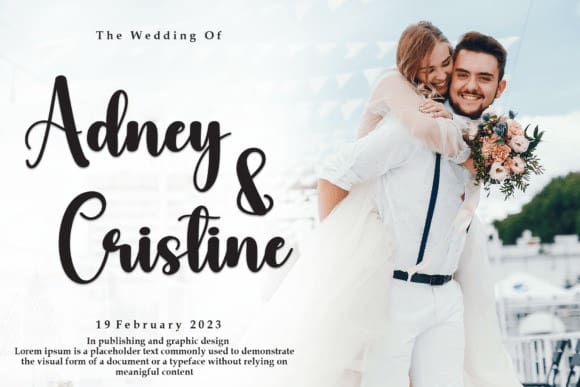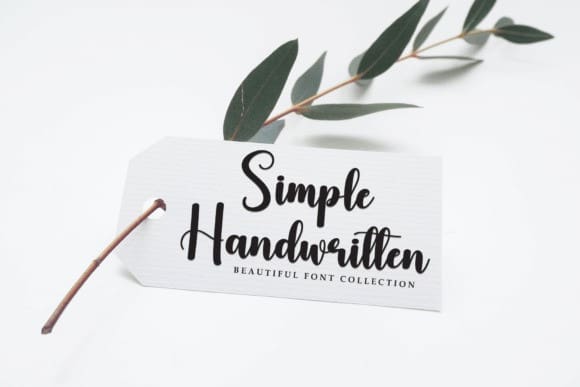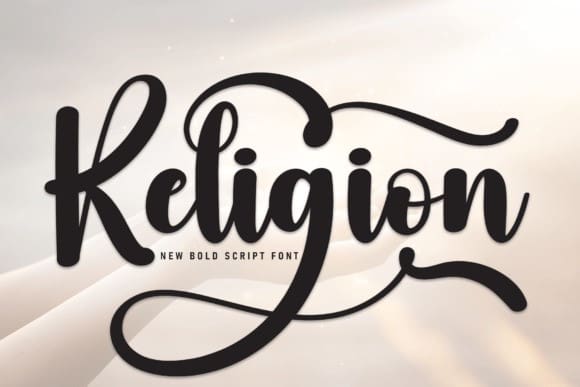
Religion Script Font
Religion Script Font is a sweet and friendly handwritten font that exudes warmth and approachability. Its gentle curves and soft lines create a welcoming tone, making it perfect for heartfelt messages, invitations, and personal touches.